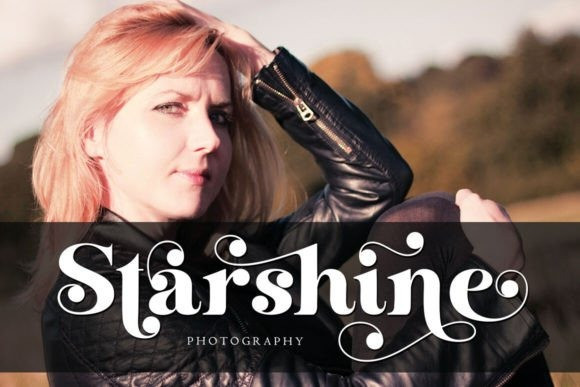
Barbie Sophia Font
Barbie Sophia Font is a beautiful and versatile serif font. This font is characterized by a luxurious style in a modern form, but also a friendly and cheerful bold style. BarbieSophia has glyphs to give crafters more choices in designing. This modern style will make a design appear more classy, elegant, unique and edgy.